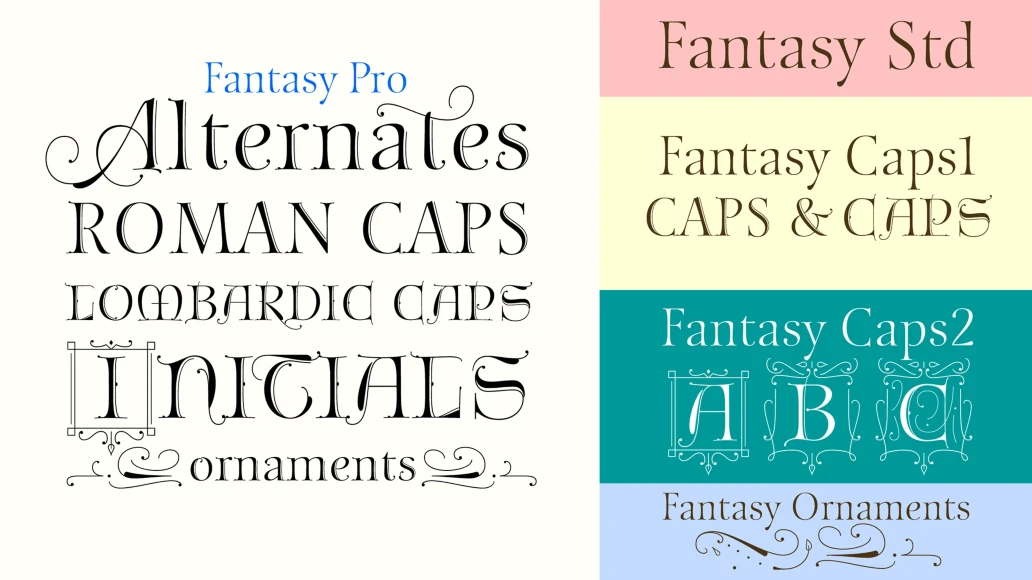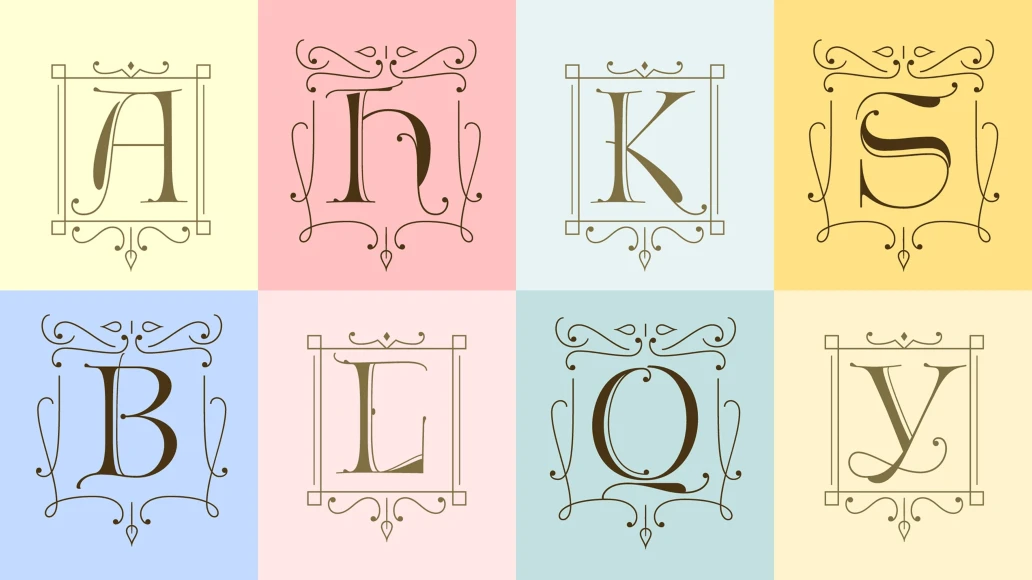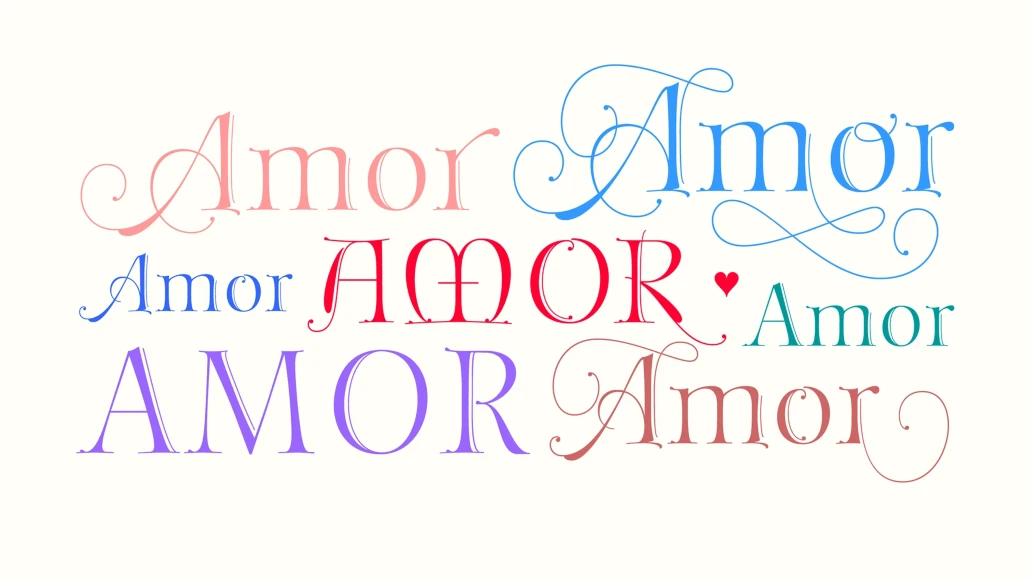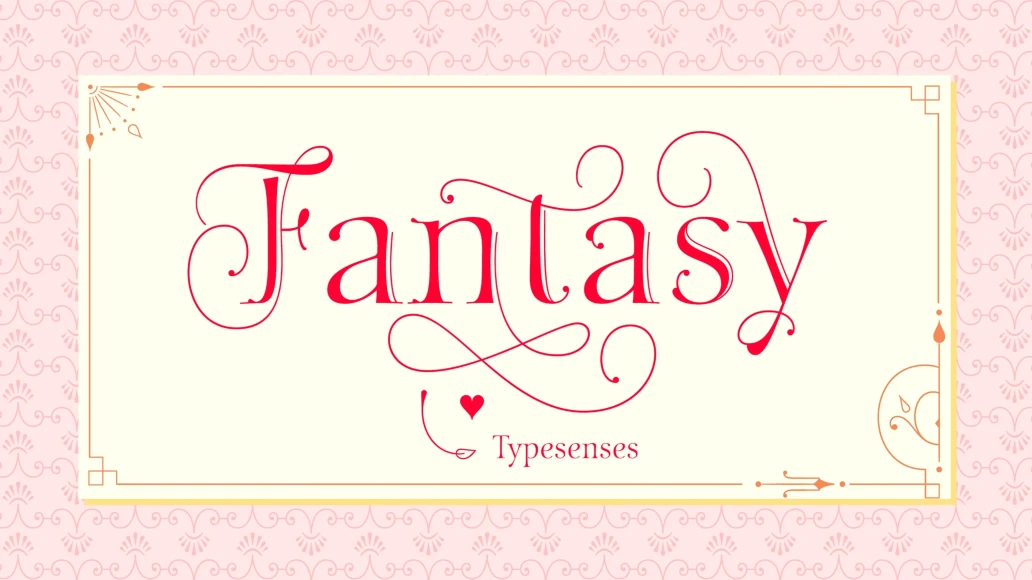
Fantasy
From Typesenses
Fantasy draws on a series of historical calligraphic traditions: Roman capitals, Lombardic initials, enlightenment era ornamentation and refinement. The user is invited to deploy their imagination playing with the alternates, ornaments and frames in different universes like publications and stationery.
Fantasy Pro is the fully-featured OpenType version with two styles of capitals and plenty of swash alternates and ornaments. Each of these varieties is available as a separate font in addition to Fantasy Std, a set of unadorned standard characters for smaller settings.
Designed by Sabrina Lopez
Fantasy Regular